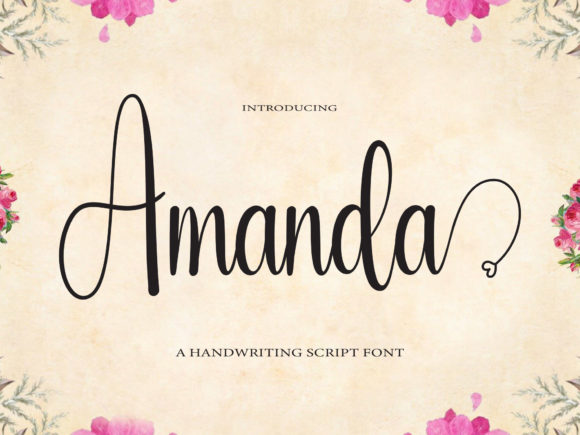
The Amanda Font: A Sweet Handwritten Delight for Designers and Crafters
I still remember the design project that led me to discover the Amanda font. I was working on a branding project for a new bakery, and I was struggling to find the perfect font to capture their warm and cozy vibe. A client request for a “friendly, handwritten look” had me scouring font libraries and marketplaces. That’s when I stumbled upon Amanda – a sweet, handwritten font that instantly resonated with the bakery’s brand personality.
An Honest Review of Amanda Font
As someone who’s used Amanda font in various projects, I’m excited to share my honest review. Here’s what I love about this font:
- ✨ Sweet and Friendly Look: Amanda’s handwritten style gives it a personal touch that’s perfect for branding, packaging, and marketing materials.
- ✅ Highly Legible: Despite its handwritten nature, Amanda is surprisingly legible, even at smaller font sizes.
- 💕 Emotional Connection: This font has a way of evoking emotions and creating a connection with the reader – perfect for projects that require a personal touch.
Now, no font is perfect, and Amanda has a few quirks:
- 🤔 Limited Character Set: Amanda’s character set is limited compared to other fonts, which can make it challenging to create complex designs.
- ⚠️ Not Suitable for Body Text: While Amanda is legible, it’s not the best choice for body text due to its decorative nature.
Amanda font was designed with love and care by a talented type designer who wanted to create a font that would evoke emotions and create a connection with the reader. The designer’s inspiration came from traditional handwritten scripts, combined with modern typography principles. The result is a font that’s both sweet and sophisticated.
| Font Name | Amanda Font |
| Author | ade studio |
| What is Amanda font best used for? | Amanda font is best used for designs that require a personal touch, such as branding, packaging, and marketing materials. |
| Is Amanda font suitable for body text? | No, Amanda font is not suitable for body text due to its decorative nature. It’s best used for headlines, titles, and short paragraphs. |